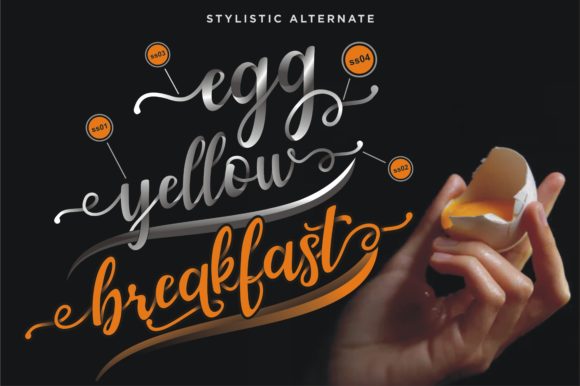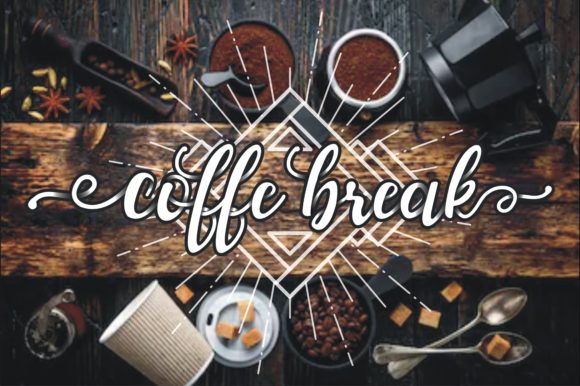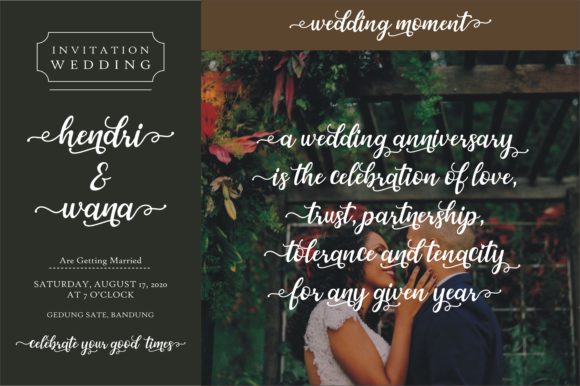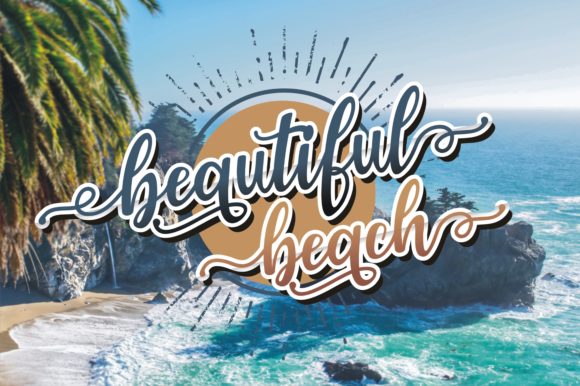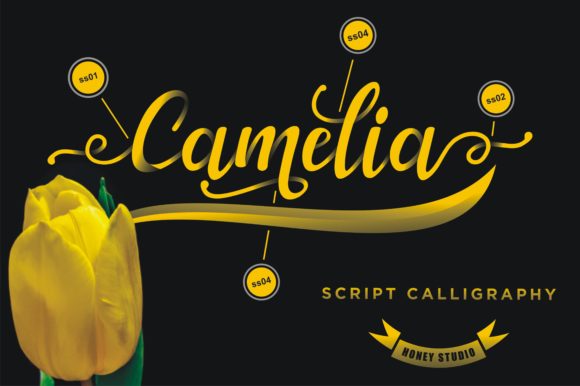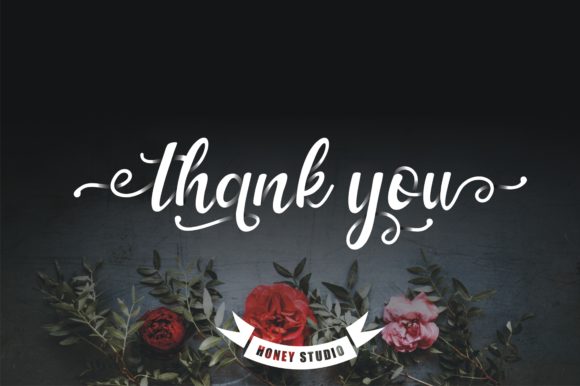
The Perfect Touch of Whimsy: Unlocking the Magic of Camelia Font
Have you ever been stuck on a design project, struggling to find that elusive spark that sets your creativity ablaze? You’re not alone. As designers, we’ve all been there – staring at a blank page, feeling like the words just won’t flow. But what if I told you that sometimes, all it takes is a simple, yet elegant font to breathe new life into your work?
Enter Camelia Font, a sweet and authentic handwritten font that’s as playful as it is charming. With its bold swashes and effortless charm, Camelia Font is the perfect addition to any designer’s toolkit. Whether you’re creating a wedding invitation, a children’s book, or a social media campaign, this font is sure to bring a touch of whimsy and personality to your design.
As designers, we’re always on the lookout for fonts that add a little extra oomph to our work. And with Camelia Font, you can rest assured that you’re getting a high-quality, versatile font that’s sure to elevate your designs to the next level.
Camelia Font Key Features
• Font Family: Camelia, Camelia Bold, Camelia Italic, Camelia Bold Italic
• Unique Characteristics: Elegant, cursive script with a classic feel; ideal for invitations, wedding stationery, and other formal events
• Language Support: Multi-language support, including Latin-based languages and Cyrillic
Camelia Font Review
Overall, I found the Camelia Font to be a lovely, elegant choice for typography. ✨ It’s perfect for those looking for a sophisticated and refined look, especially in high-end branding and design applications. ✨ The font’s curves and lines create a sense of fluidity, making it easy to read.
However, there are a few limitations to consider. ⚠️ Firstly, the font may not be as versatile as some other options. It’s best suited for formal or traditional designs, and may not be the best choice for modern or edgy projects. ⚠️ Additionally, the font’s legibility can be affected by font size and line spacing. Make sure to test it thoroughly in different contexts.
Here are some key features to keep in mind:
• Elegant and refined design
• Perfect for high-end branding and design applications
• Fluid curves and lines make it easy to read
• May not be as versatile as other font options
• Legibility can be affected by font size and line spacing
In conclusion, the Camelia Font is a solid choice for designers who want to create a sophisticated and elegant look. While it may have some limitations, it’s a great option for the right project. Just be sure to test it thoroughly and consider its limitations before making a decision.
Tips for getting the most out of Camelia Font in Canva: Use it for creating elegant and sophisticated designs, especially for wedding invitations, birthday cards, and other special occasions.
Tips for getting the most out of Camelia Font in Adobe Photoshop/Illustrator: Use it for creating intricate and ornate designs, especially for invitations, business cards, and other marketing materials.
Tips for getting the most out of Camelia Font in PowerPoint/Word: Use it for creating professional and elegant presentations, especially for business meetings, conferences, and other formal events.
Camelia Font is ideal for creating elegant and sophisticated designs, especially for:
Wedding invitations and wedding stationery
Birthday cards and party invitations
Presentation slides and formal documents